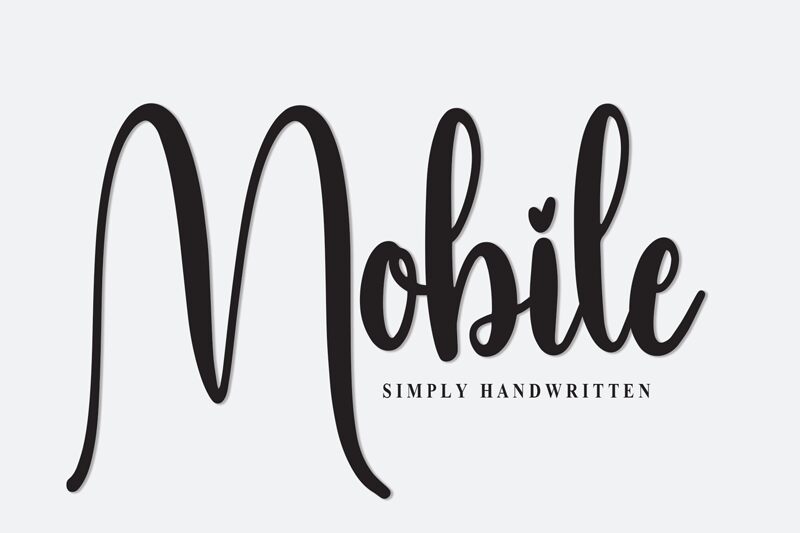
Mobile
The Mobile font, crafted by Scratchones, emanates a captivating, handwritten charm. Its organic, free-flowing strokes exude a sense of warmth and authenticity, inviting the viewer to engage with its expressive, artisanal aesthetic. The font's distinctive, slightly slanted letterforms and playful ligatures lend a touch of personality, seamlessly blending the line between formal and casual.
This versatile font shines in a variety of design contexts, from editorial layouts and branding materials to product packaging and social media content. Its adaptable nature allows it to seamlessly integrate into both modern and vintage-inspired compositions, effortlessly capturing the essence of the message being conveyed.